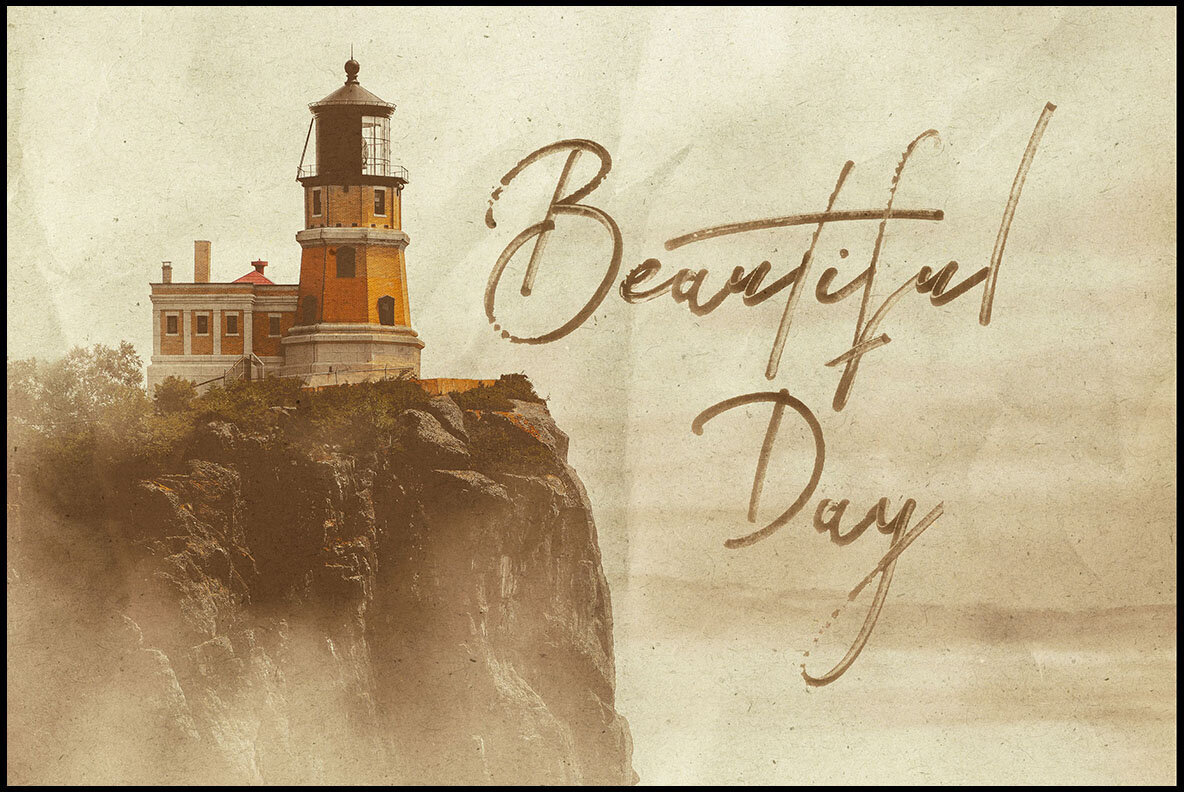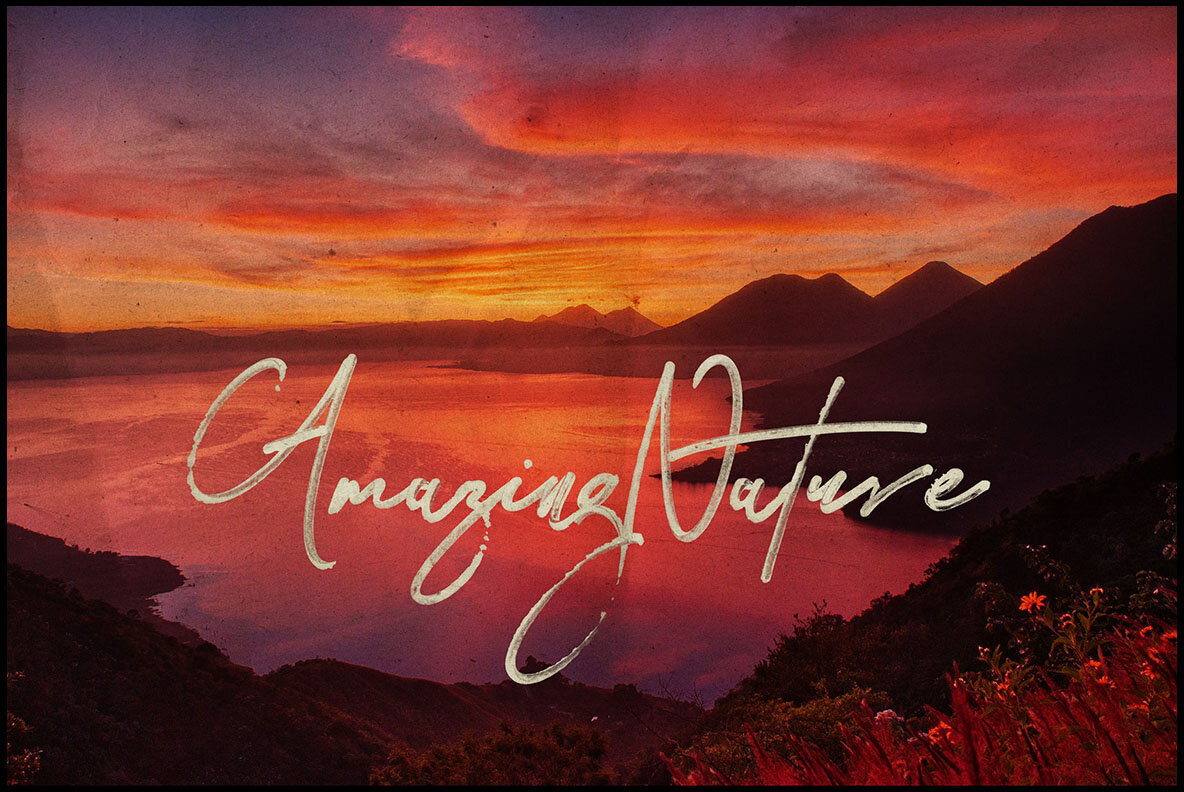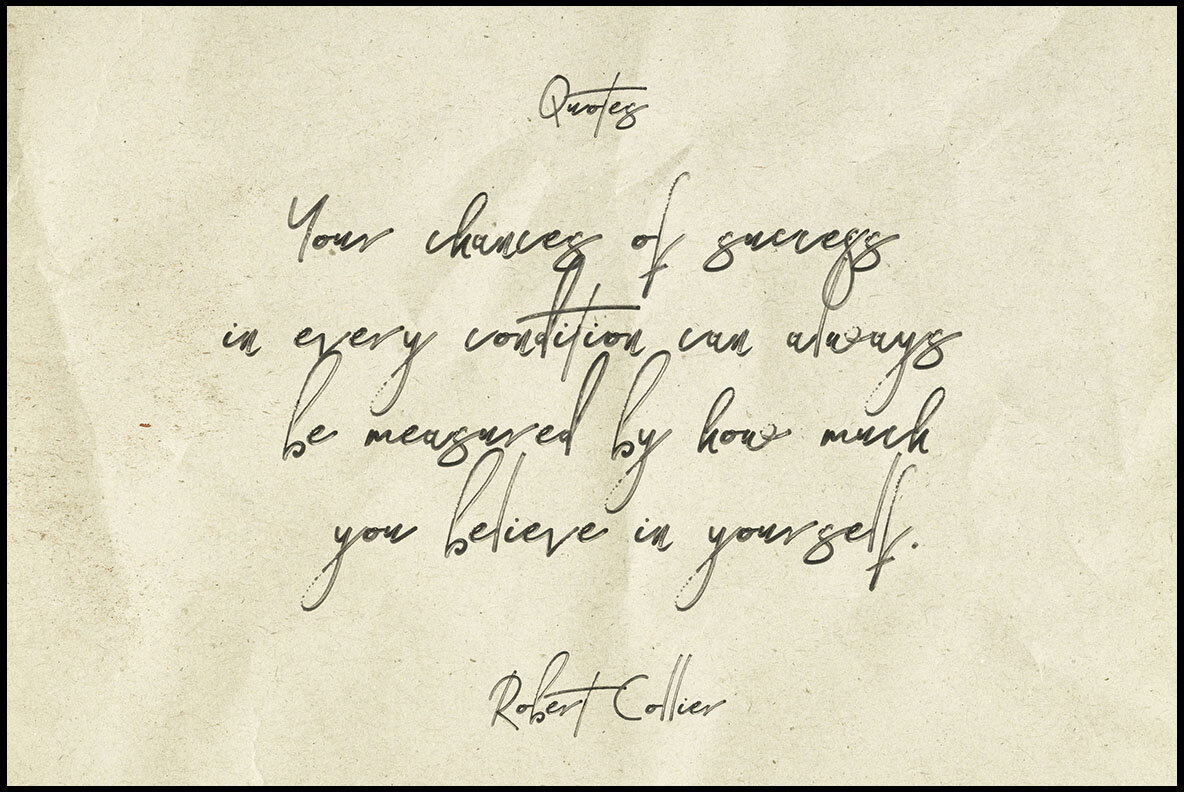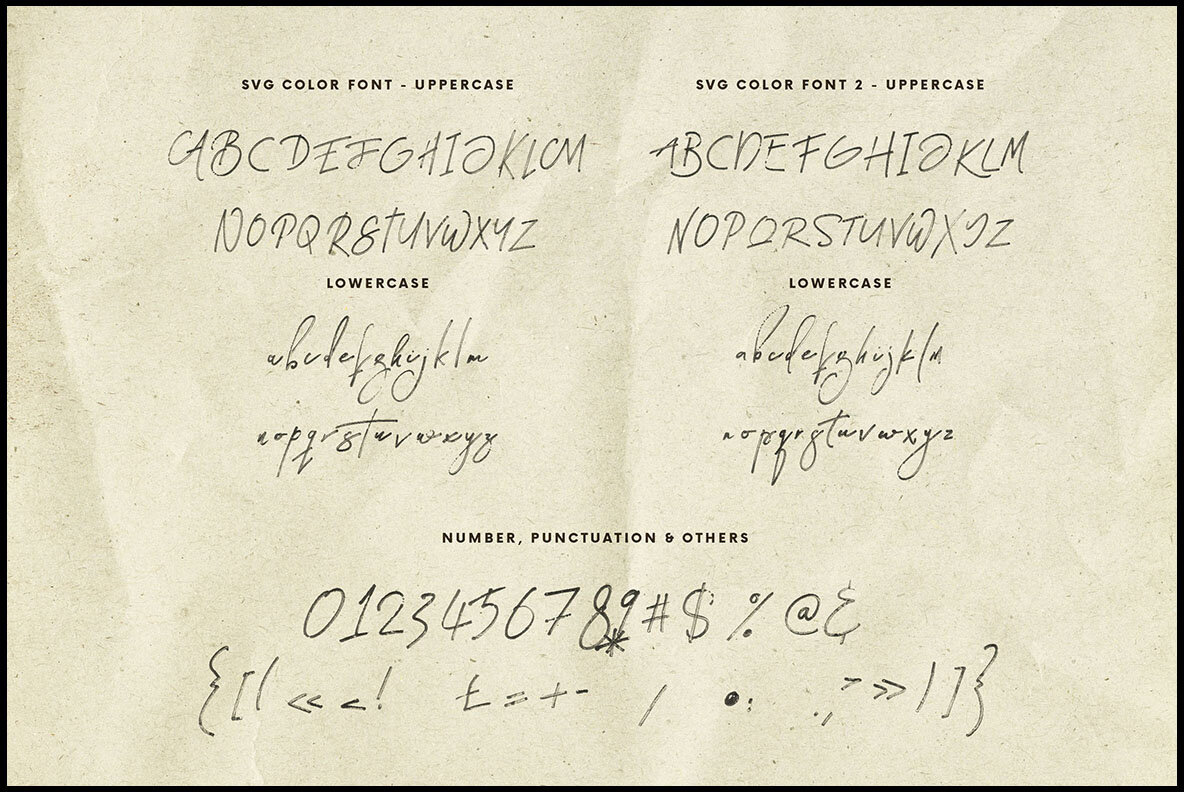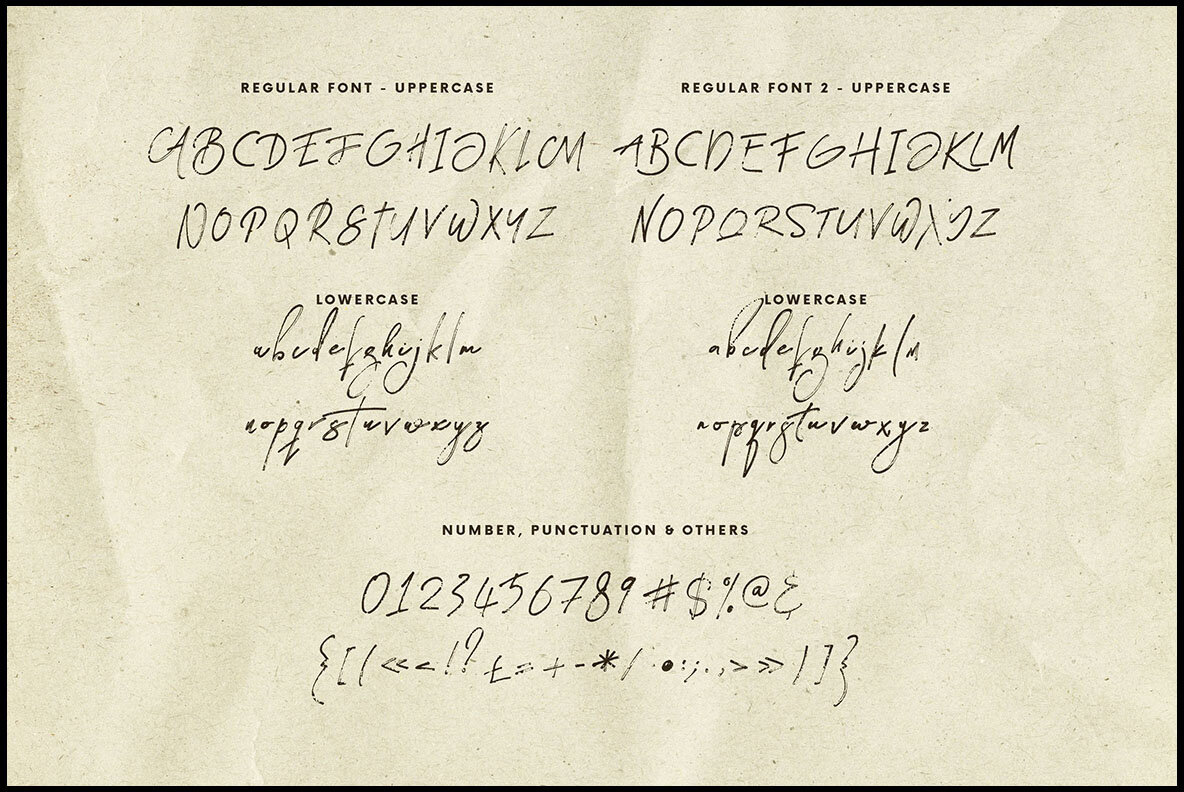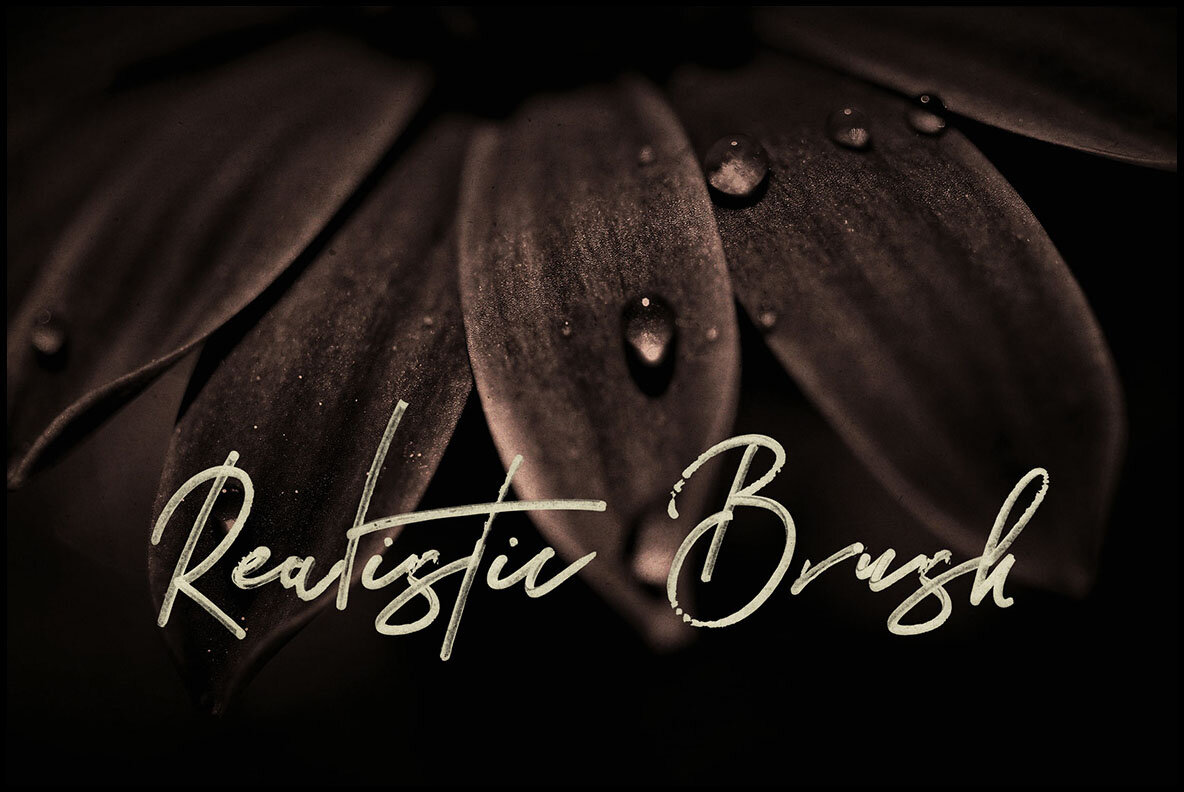
Affect Script Font
Discover Affect Script by Peter Olexa, a brush, rough, and elegant grunge style script font designed for diverse projects. This handwritten font, crafted with an organic brush marker, adds an artistic touch to grunge and urban designs.Affect Script: Organic Brush Marker Display Font